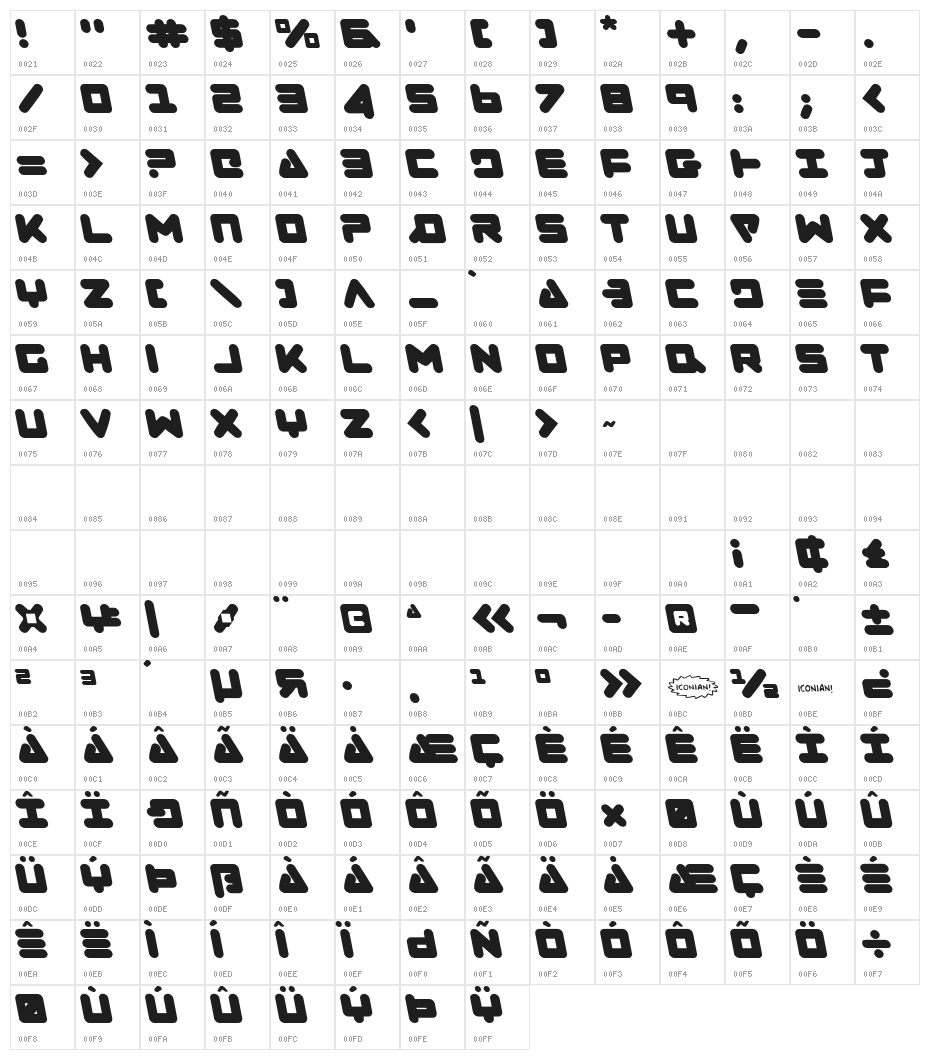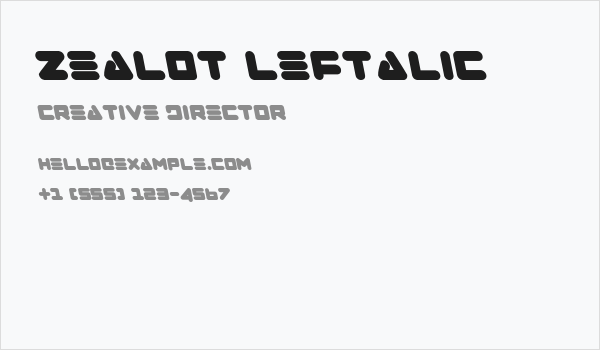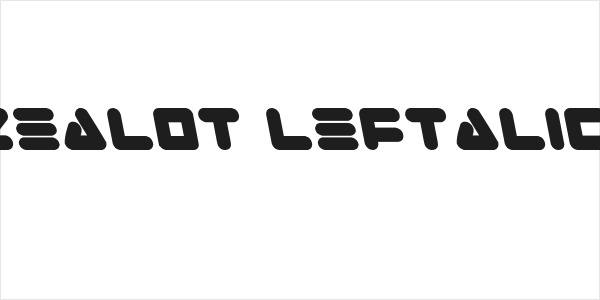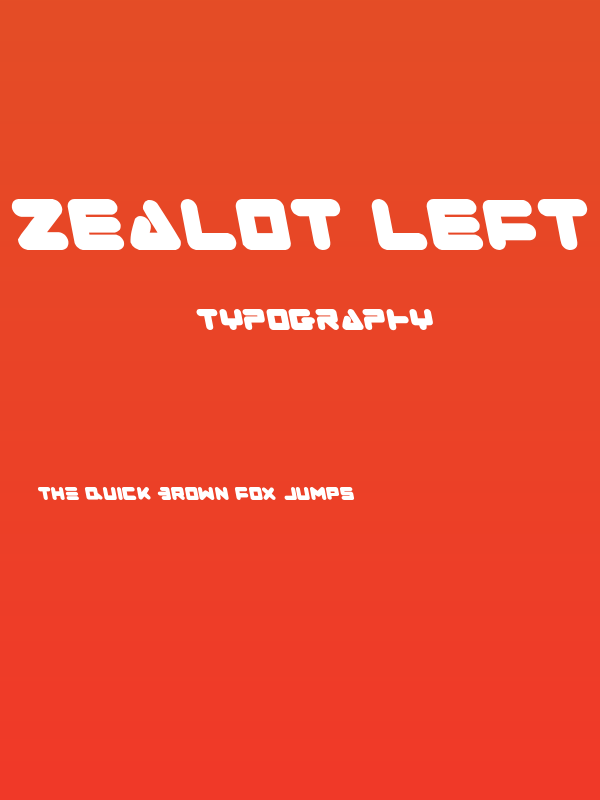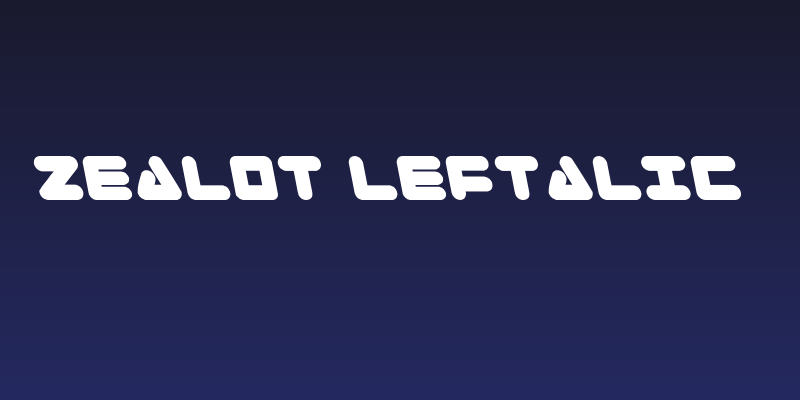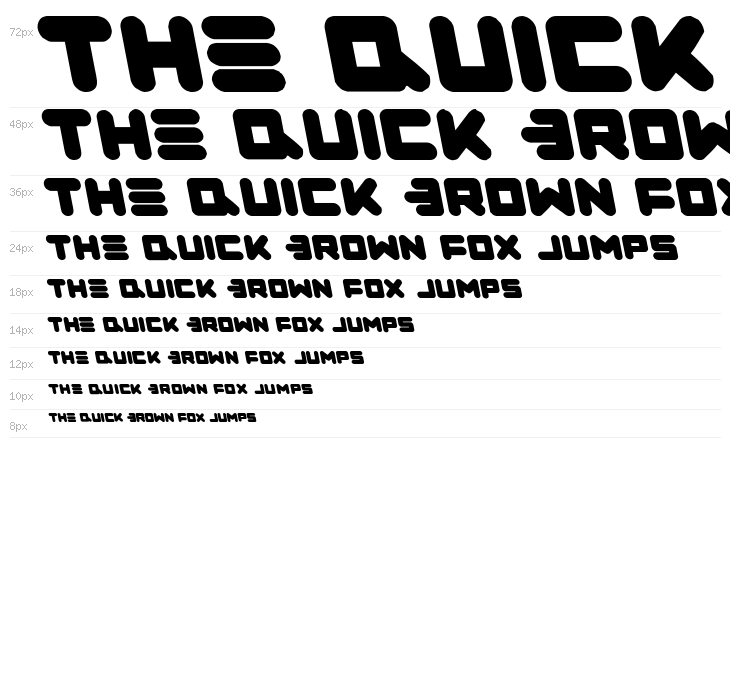
Zealot Leftalic Font
Zealot Leftalic Description
This font features a bold, futuristic design with a strong geometric influence. The characters are constructed with thick, rounded edges, giving them a robust and solid appearance. The style is consistent across both uppercase and lowercase letters, as well as numbers and special characters, maintaining a cohesive look. The font's unique design includes angular cuts and a slightly slanted orientation, adding a dynamic feel. The overall aesthetic is modern and tech-inspired, making it suitable for projects that require a bold and impactful visual presence.